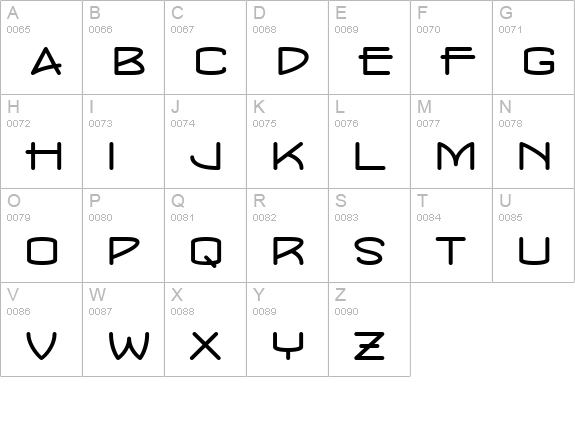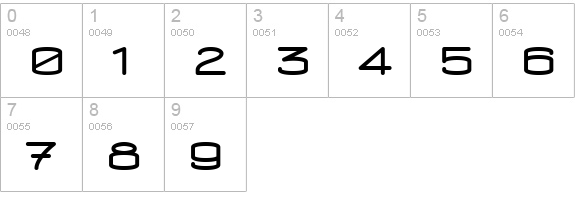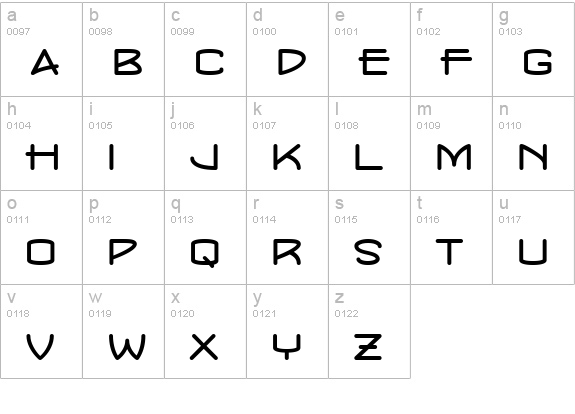
ConcursoModerne BTN Wide is a distinctive, extended-width variant in the ConcursoModerne typeface family \xE2\x80\x94 well suited to design and typography projects.
ConcursoModerne BTN Wide font is a modern and stylish typeface that exudes sophistication and elegance. Its wide and bold design makes it perfect for headlines, titles, and any other text that needs to make a statement. The clean lines and sleek curves of this font give it a contemporary and refined look that is sure to enhance any design project. What makes ConcursoModerne BTN Wide font even more appealing is that it is free to download at FontsMarket.com. This means that you can easily access this high-quality font without having to pay a dime. Whether you're a professional graphic designer looking for a versatile typeface or a hobbyist looking to add a touch of class to your projects, ConcursoModerne BTN Wide font is a fantastic choice that won't cost you a thing. Download it today and elevate your designs with this stunning and free font.